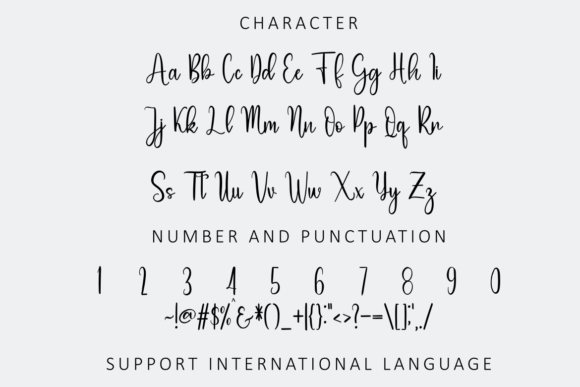
Farming House Font: Elevate Your Designs with a Touch of Elegance
In the world of typography, fonts play a crucial role in conveying the tone and personality of a design. When it comes to creating a lasting impression, a well-crafted font can make all the difference. This is where Farming House Font comes into play – a trendy handwritten font that exudes a contemporary atmosphere and impeccable form, inspired by timeless classic calligraphy.
The Inspiration Behind Farming House Font
Farming House Font is a beautiful blend of traditional calligraphy and modern design elements. Its creation was inspired by the elegance and sophistication of classic calligraphy, which has been a cornerstone of fine art for centuries. The font’s designer aimed to capture the essence of this timeless art form and infuse it with a contemporary twist, making it perfect for a wide range of design applications.
Key Features of Farming House Font
Farming House Font boasts a range of features that make it an ideal choice for designers looking to add a touch of elegance to their projects. Some of its key features include:
- Trendy Handwritten Style: Farming House Font has a modern, handwritten look that is both stylish and approachable.
- Contemporary Atmosphere: The font’s clean lines and subtle curves create a sense of sophistication and refinement.
- Impeccable Form: Each letterform has been carefully crafted to ensure perfect proportions and balance.
- Timeless Classic Calligraphy Inspiration: The font’s roots in traditional calligraphy give it a sense of heritage and tradition.
Uses of Farming House Font
Farming House Font is a versatile typeface that can be used in a variety of design projects, including:
- Branding and Logo Design: The font’s elegant and sophisticated style makes it perfect for creating high-end logos and brand identities.
- Wedding and Event Design: Farming House Font is ideal for creating beautiful wedding invitations, programs, and other event materials.
- Packaging Design: The font’s modern and stylish look makes it suitable for product packaging, particularly for luxury goods.
- Advertising and Marketing: Farming House Font can be used to create eye-catching ad campaigns and marketing materials that exude sophistication and refinement.
Benefits of Using Farming House Font
By incorporating Farming House Font into your design projects, you can enjoy a range of benefits, including:
- Elegance and Sophistication: The font’s classic calligraphy inspiration and modern design elements combine to create a truly elegant and sophisticated look.
- Versatility: Farming House Font can be used in a wide range of design applications, from branding and advertising to packaging and event design.
- Timeless Appeal: The font’s timeless classic calligraphy inspiration ensures that it will remain a stylish and relevant choice for years to come.
Tips for Using Farming House Font Effectively
To get the most out of Farming House Font, follow these tips:
- Use it Sparingly: Due to its elegant and sophisticated nature, Farming House Font is best used sparingly to avoid overwhelming the design.
- Pair it with Neutral Fonts: Pair Farming House Font with neutral fonts, such as sans-serif or serif fonts, to create a balanced and harmonious design.
- Experiment with Colors: The font’s clean lines and subtle curves make it suitable for use with a range of colors and textures.
Farming House Font is a stunning handwritten font that brings a touch of elegance and sophistication to any design project. With its timeless classic calligraphy inspiration and modern design elements, this font is perfect for designers looking to create high-end designs that exude refinement and style. Whether you’re working on a branding project, wedding design, or packaging design, Farming House Font is an excellent choice.